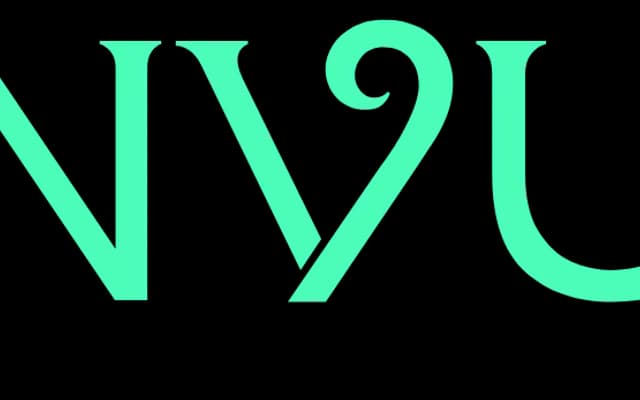
DT SS Nouveau
A single-weight open-source display face that pairs a geometric skeleton with organic curves, flared micro-serifs and alternate uppercase letters featuring descending legs.
Designed by Lee Qiu Wen and released under the Open Font License, DT SS Nouveau sits on a geometric base while introducing expressive curves and flourishes that recall art nouveau lettering. Subtle flared serifs provide a quieter counterpoint to the more theatrical alternate forms, creating tension between restraint and decoration. Its free, open-source licence makes it accessible for both commercial and non-commercial use.
A single-weight display face with geometric construction, organic curves, flared micro-serifs and uppercase alternates with descending legs — qualities that place it firmly in decorative display territory with art nouveau sensibility.